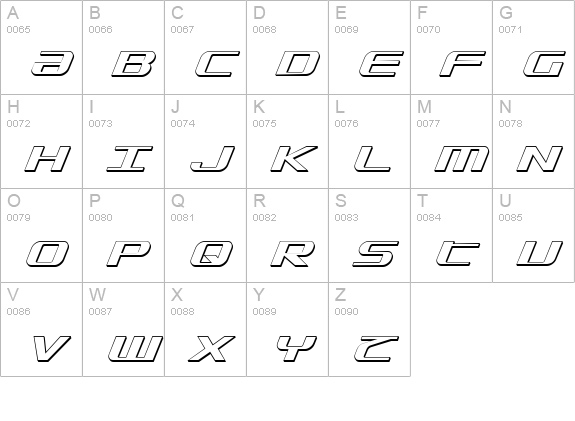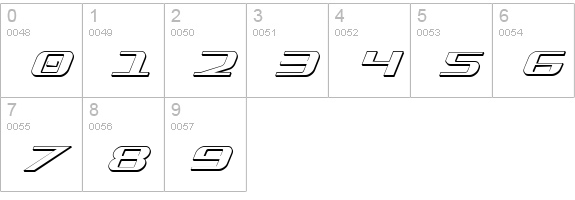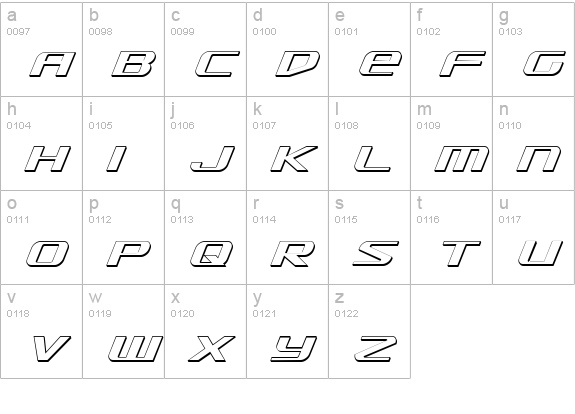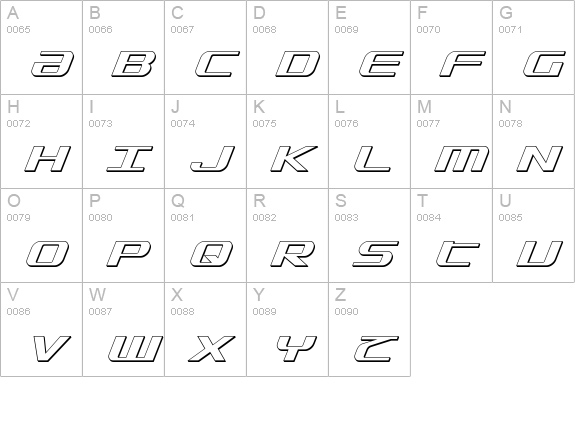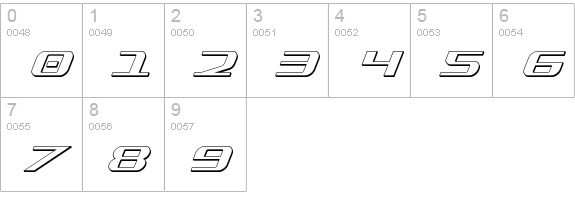
SDF 3D Italic is a distinctive, italic variant in the SDF typeface family \xE2\x80\x94 well suited to design and typography projects.
Introducing the stunning SDF 3D Italic font, a sleek and modern typeface that is sure to make your designs stand out. This unique font features intricate 3D effects that add depth and dimension to your projects. The italic style brings a touch of elegance and sophistication to any text, making it perfect for a wide range of design applications. But the best part? This amazing font is available for free download at FontsMarket.com! That's right, you can easily get your hands on this eye-catching typeface without spending a dime. Whether you're working on a branding project, website design, or any other creative endeavor, the SDF 3D Italic font is sure to elevate your work to the next level. Don't miss out on this fantastic opportunity to enhance your designs with this stylish and versatile font. Download the SDF 3D Italic font today and take your projects to new heights!